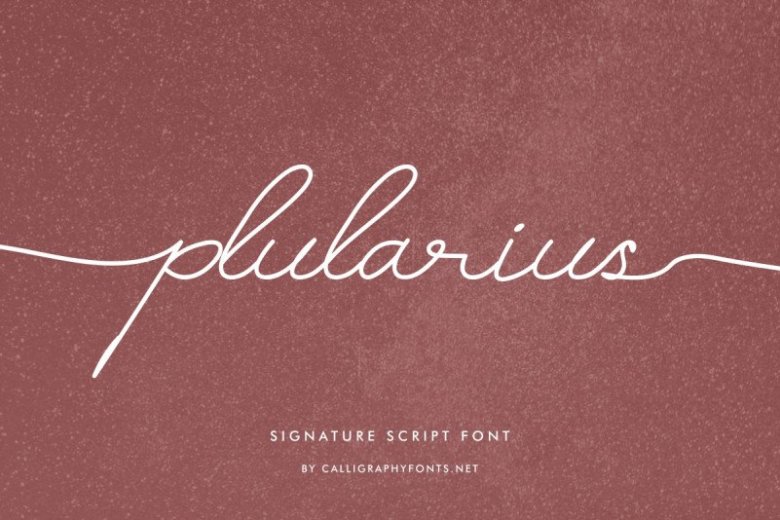
Plularius Signature Script Font
Plularius Signature Script Font is our newest product. It is a signature script Font with an exclusive original style. The theme of this font are glamour, signature, modern, elegant, luxury, handwritten, classic and simple lettering.